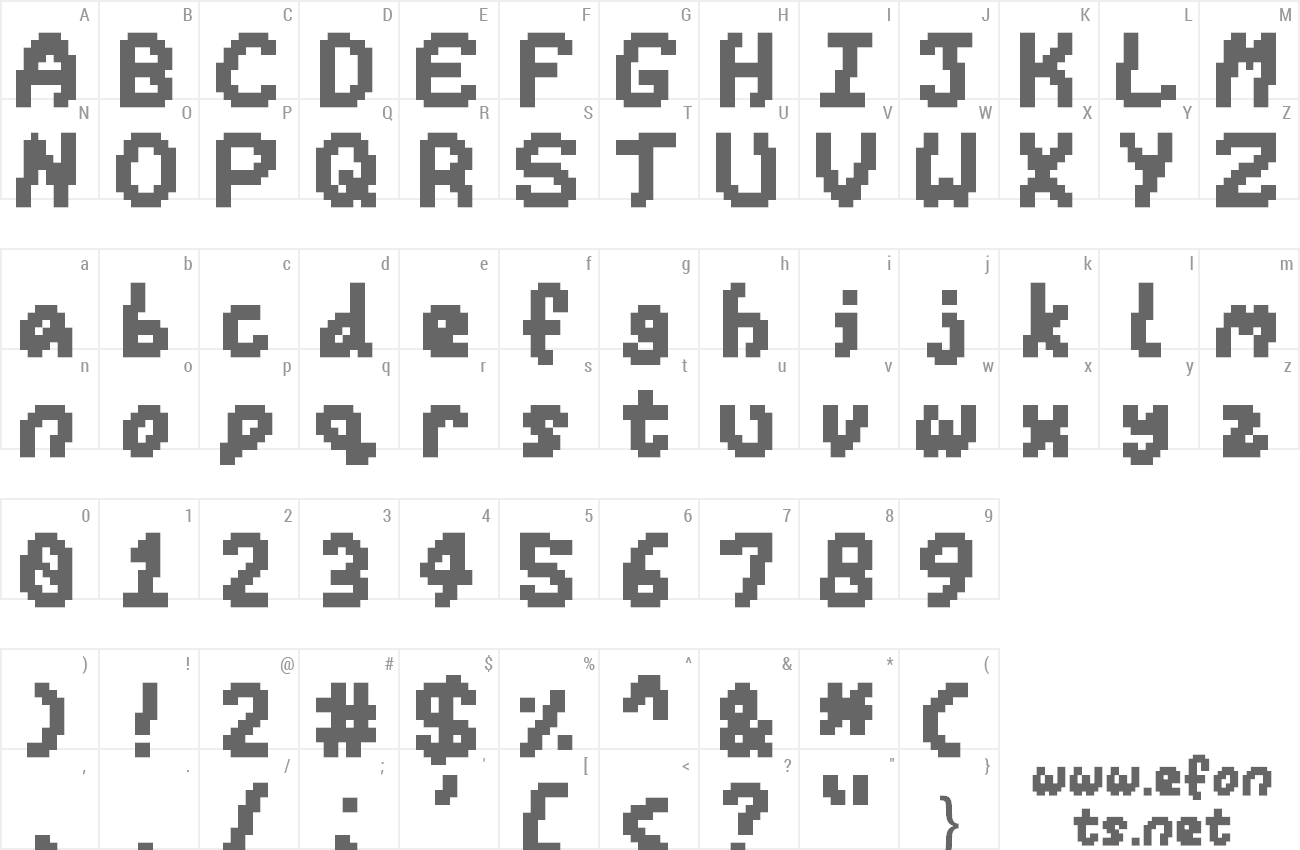
| Font name: | Mitochondria |
| Author: | Dino Raz |
| Note by Dino Raz | |
| I created this to fill in the void of wiggly pixel fonts. It's not perfect, still missing `{} and | but it gets the job done. |